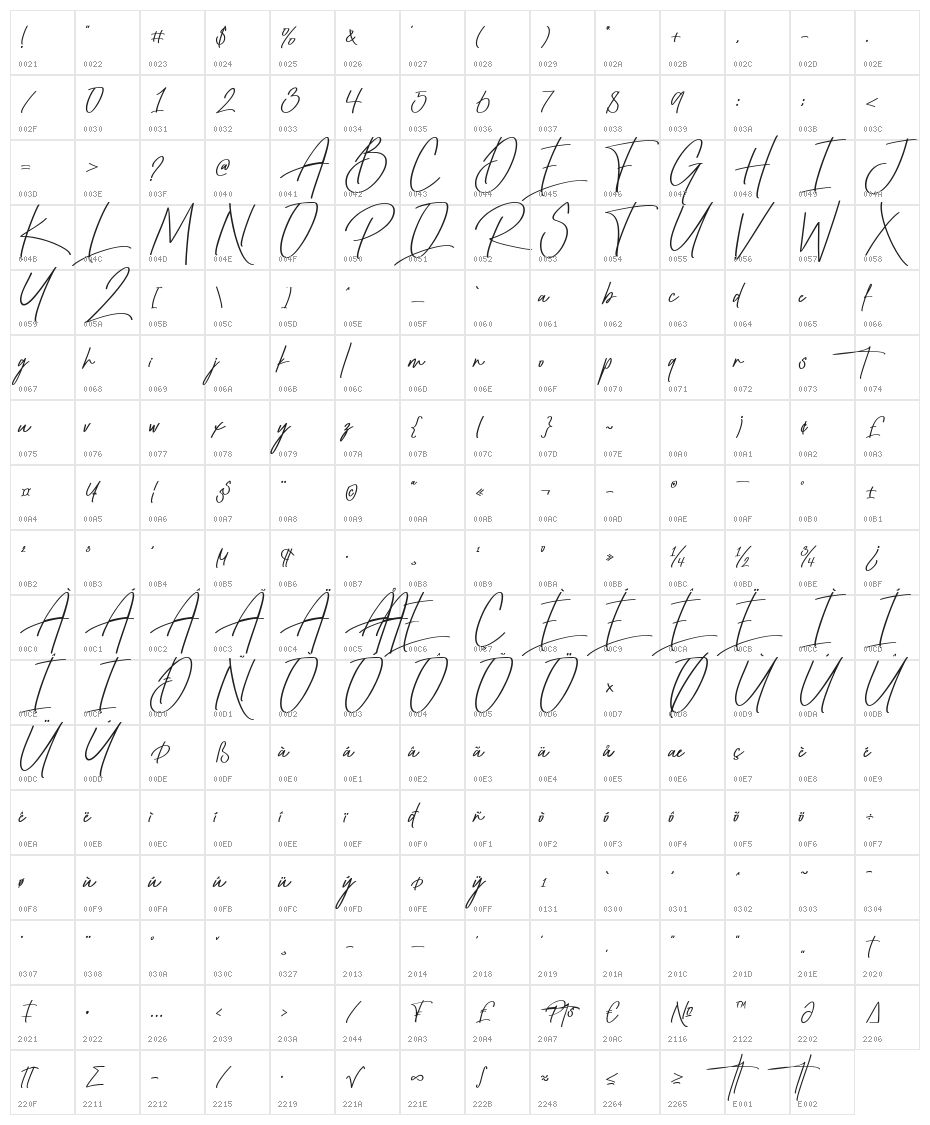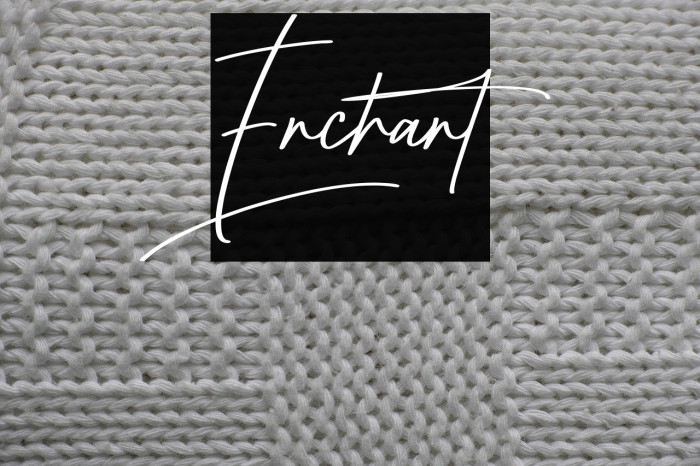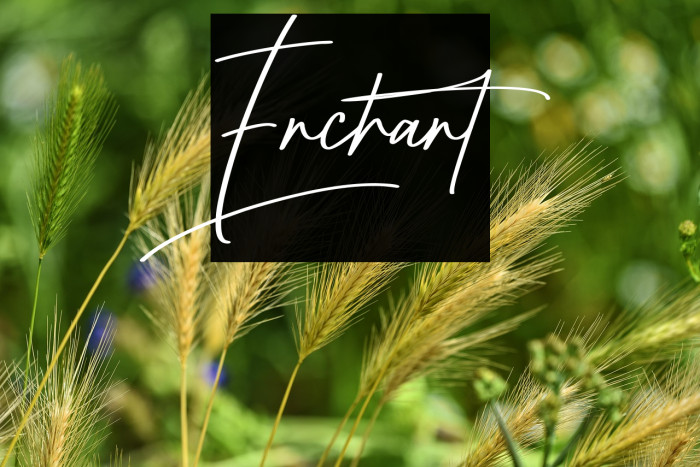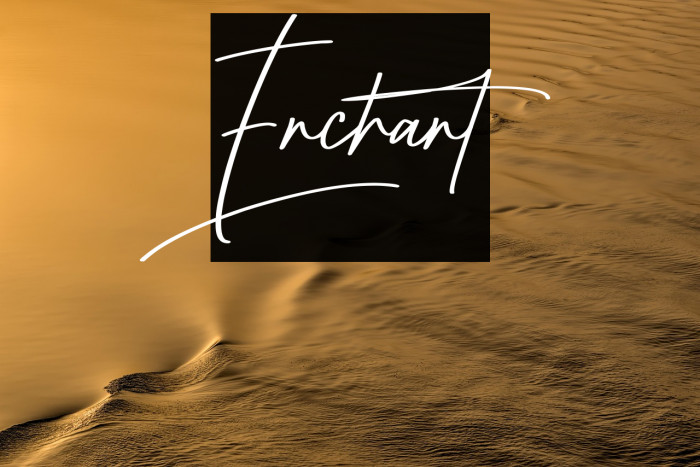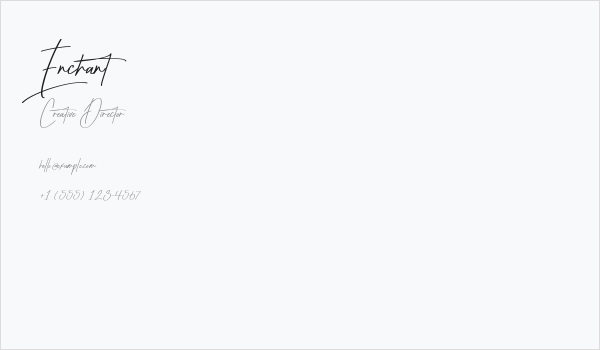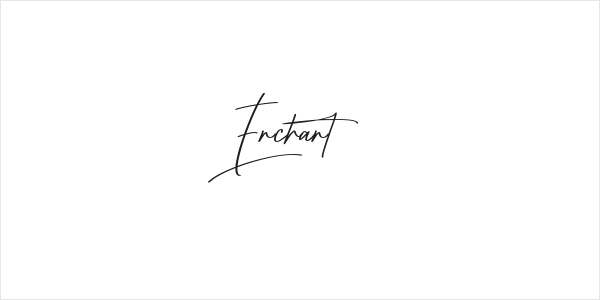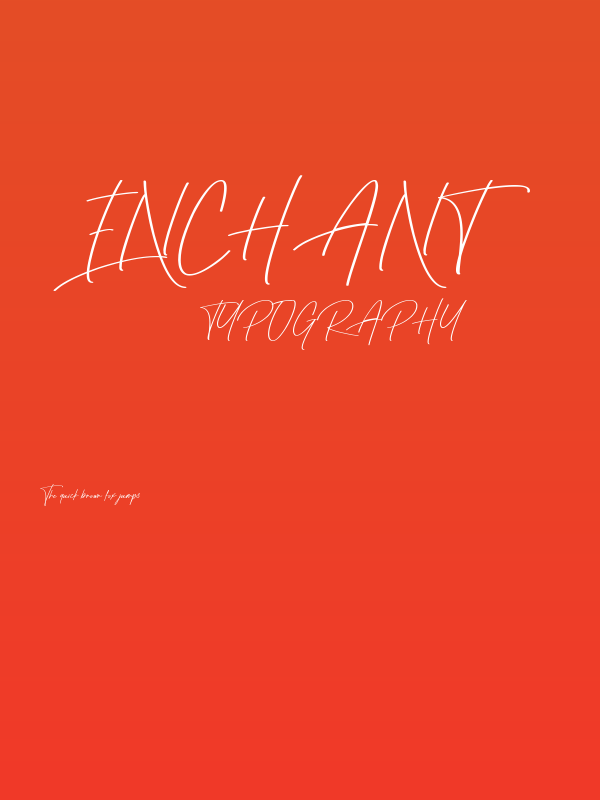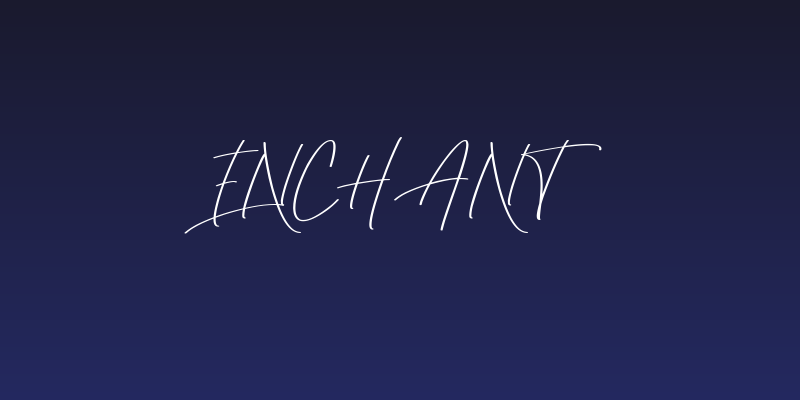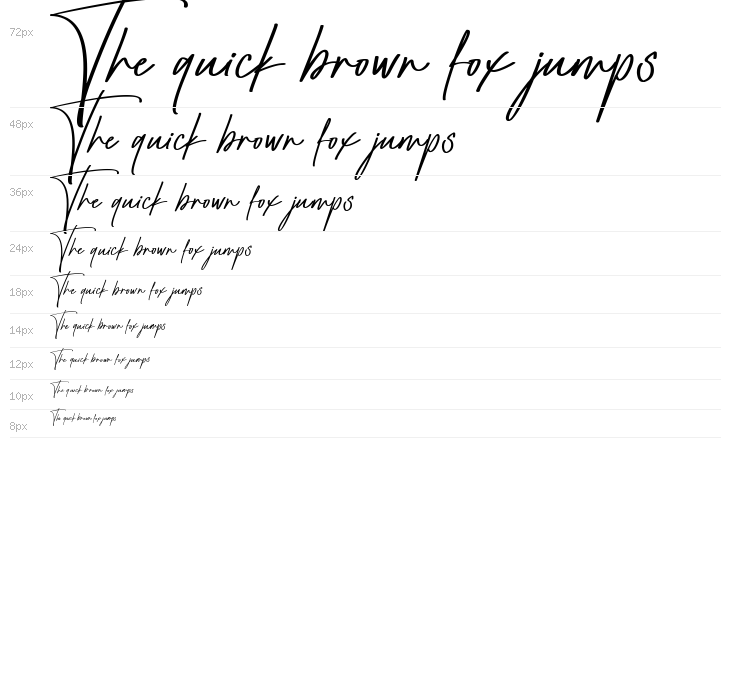
Enchant Font
Enchant Description
This font exudes a lively and dynamic energy, characterized by its handwritten style with a touch of elegance. The uppercase letters are tall and slightly slanted, giving a sense of movement and fluidity. The lowercase letters maintain a consistent flow, with some characters featuring unique loops and curves that add personality. The numerals are clear and legible, while the special characters complement the overall aesthetic with their playful yet sophisticated design. The strokes vary in thickness, providing a medium contrast that enhances readability while maintaining an artistic flair.
| Proposed Projects | Ideal for wedding invitations, personal branding, greeting cards, and artistic projects that require a personal touch. |